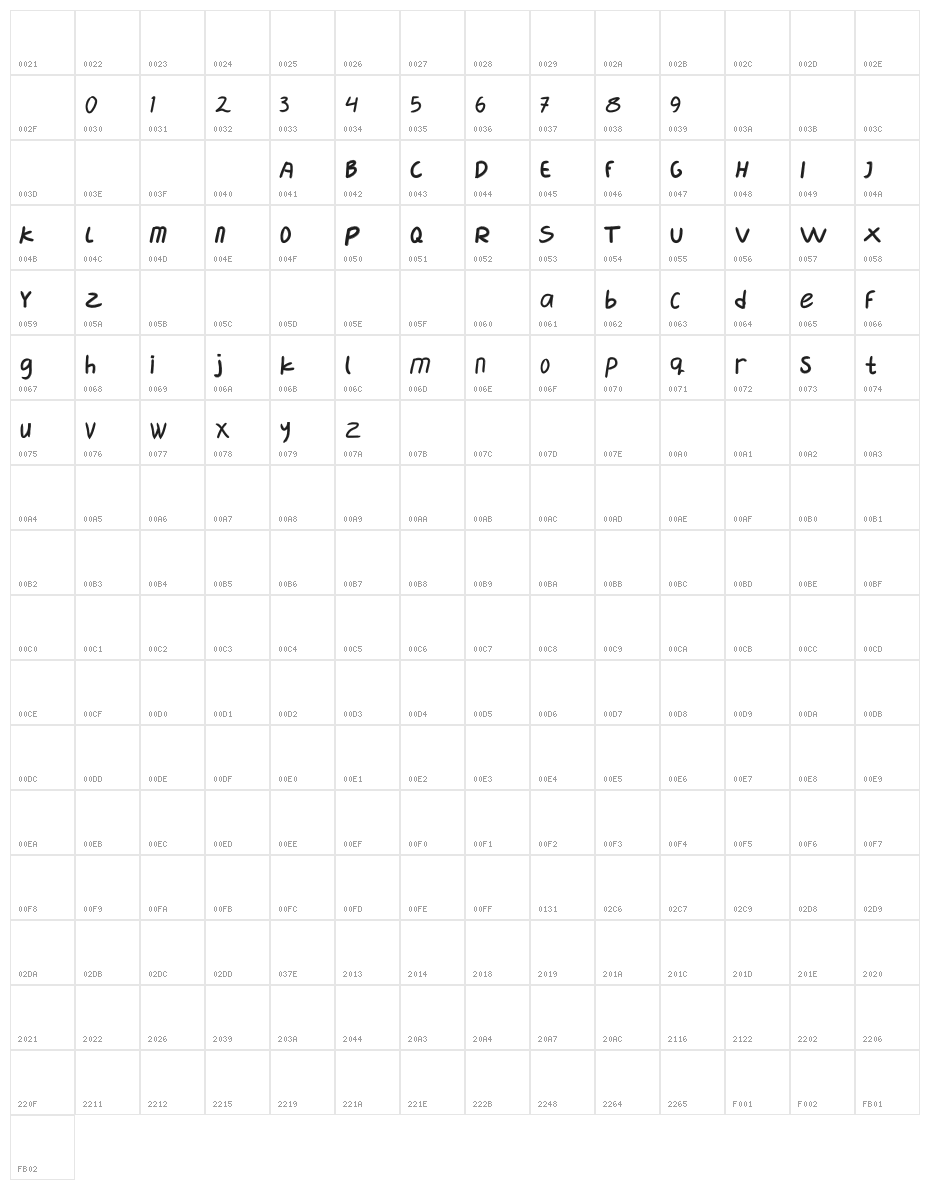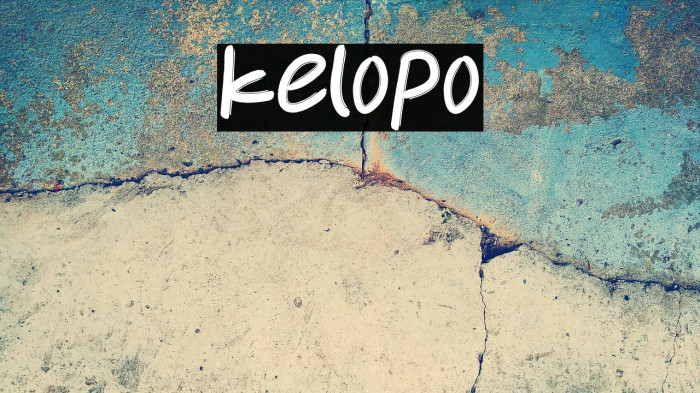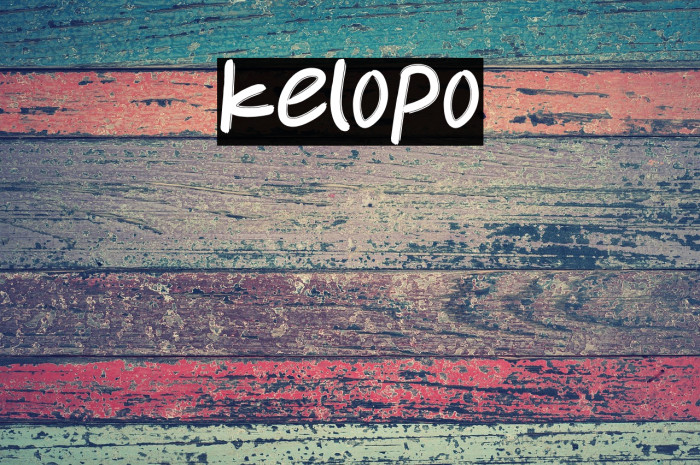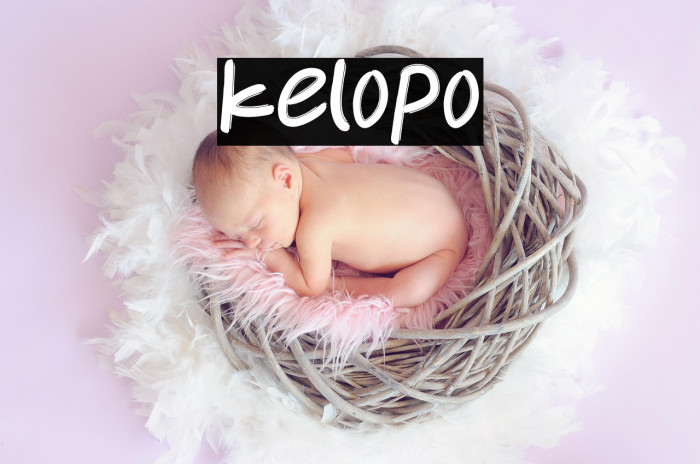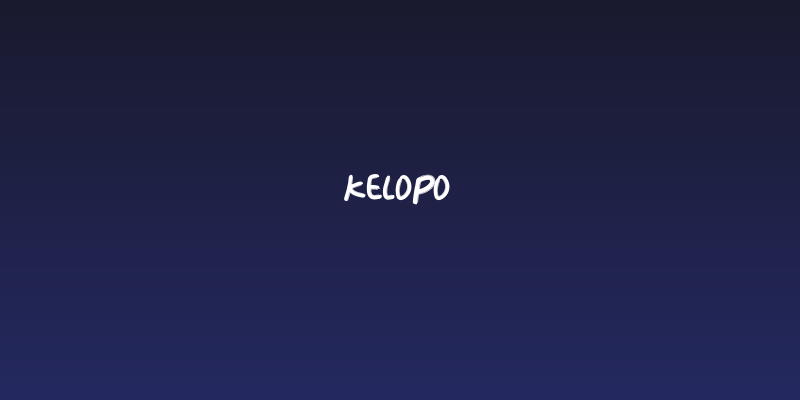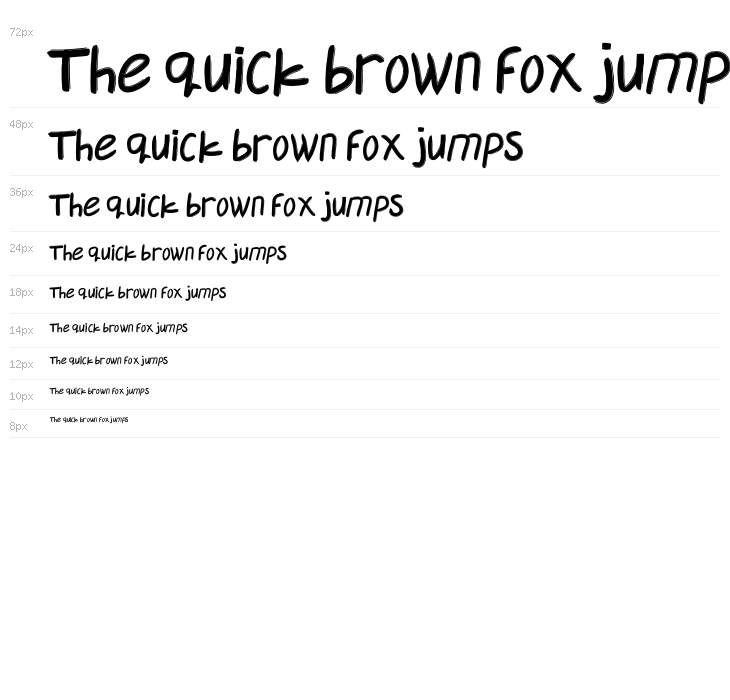
kelopo Font
kelopo Description
This font features a playful and casual handwritten style, characterized by its bold and slightly irregular strokes. The letters exhibit a dynamic flow, with rounded edges and a slight slant that adds to its informal appearance. The uppercase and lowercase letters maintain a consistent style, while the numbers and special characters blend seamlessly with the overall design. The font's unique charm makes it suitable for projects that require a personal touch or a relaxed vibe.
| Proposed Projects | Ideal for greeting cards, children's books, casual branding, and social media graphics. |